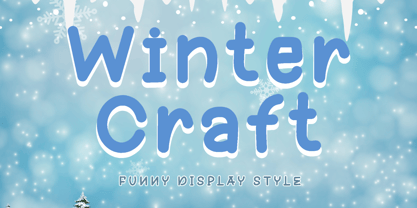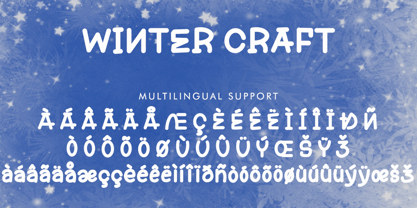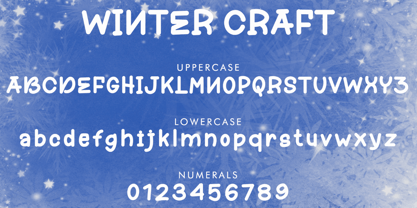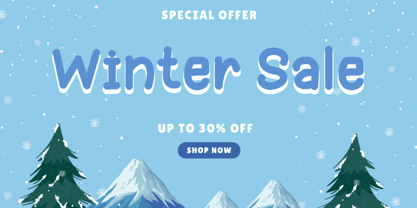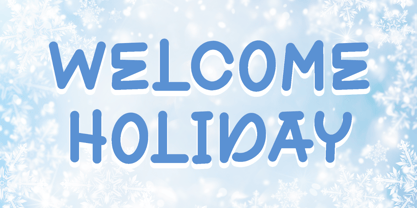
Winter Craft
por Yoga Letter
La familia tipográfica Winter Craft fue diseñada por Isroni Yoga Prasetya y publicada por Yoga Letter. Winter Craft contiene 1 estilos.
"Winter Craft" is a unique and elegant display font. It features uppercase and lowercase letters, numerals, punctuation, and multilingual support. It's perfect for Christmas, banners, posters, print, branding, logos, comics, Halloween, winter, holiday, summer, weddings, engagements, spring, invitations, vacations, comics, Procreate, fall, autumn, and more.